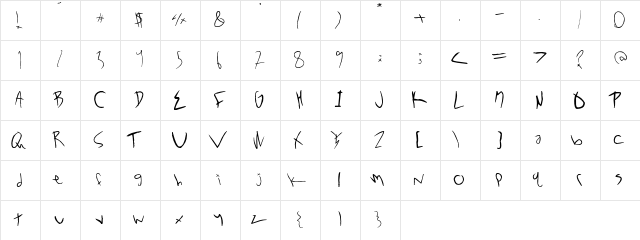
NoXWay NoXWay Font Preview
NoXWay NoXWay
NoXWay NoXWay Font Details
Design Context for NoXWay Typeface
NoXWay is a composed and adaptable typeface that performs quietly and consistently across a wide range of design contexts.